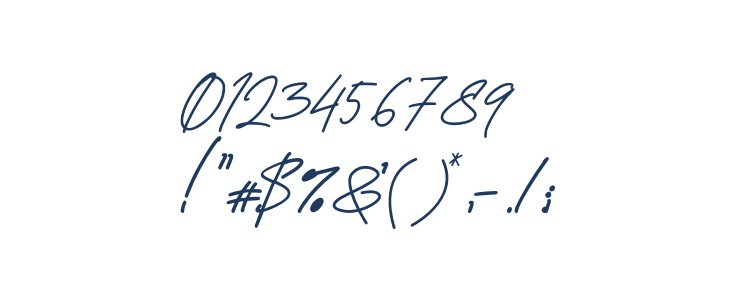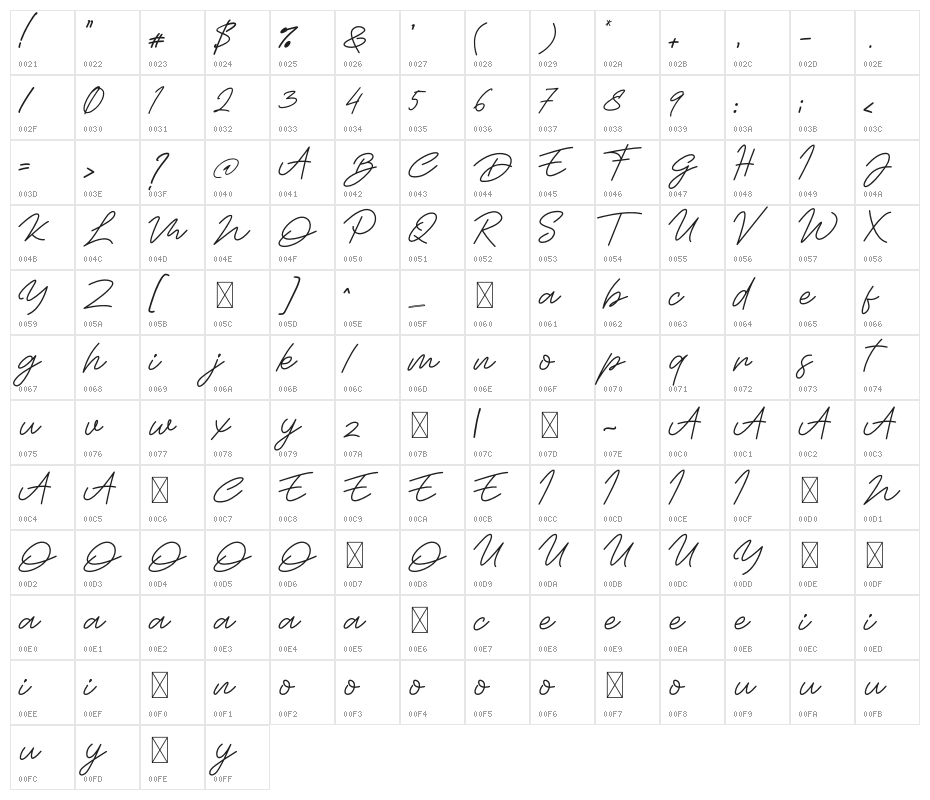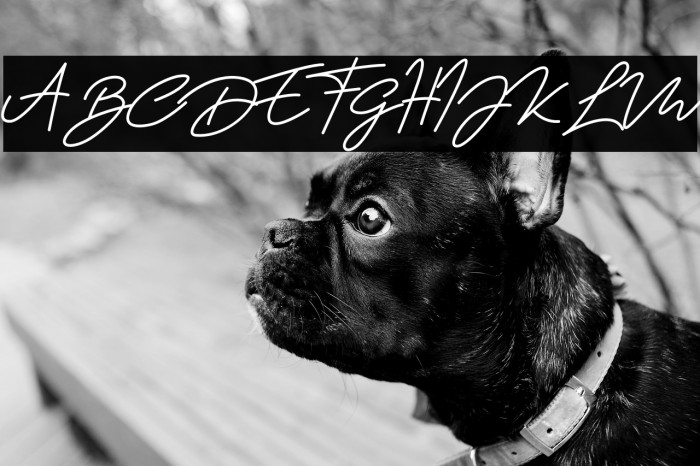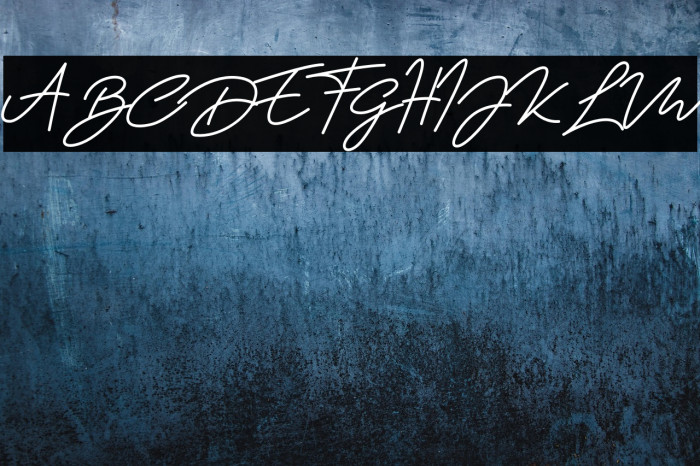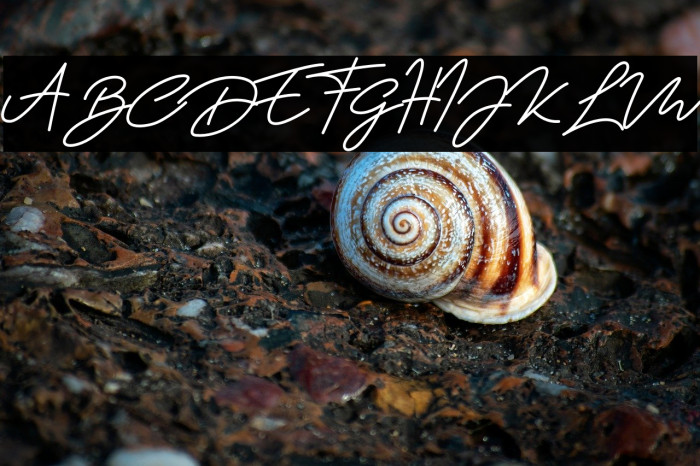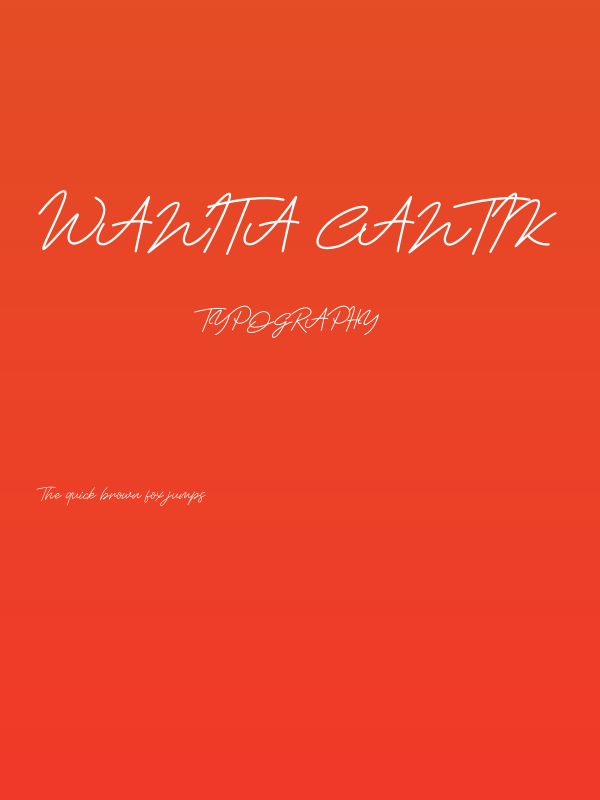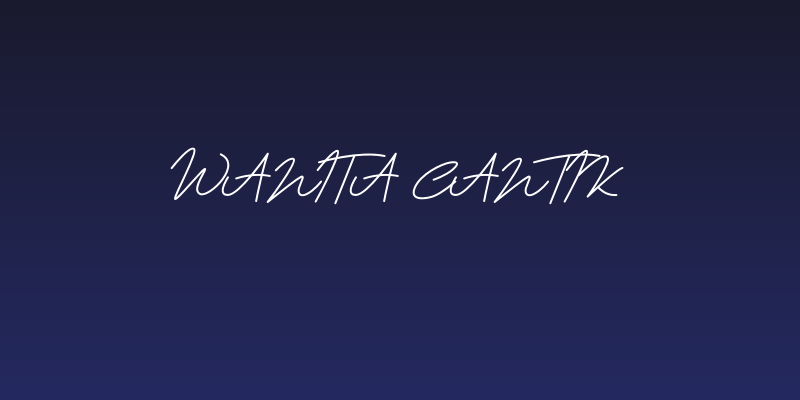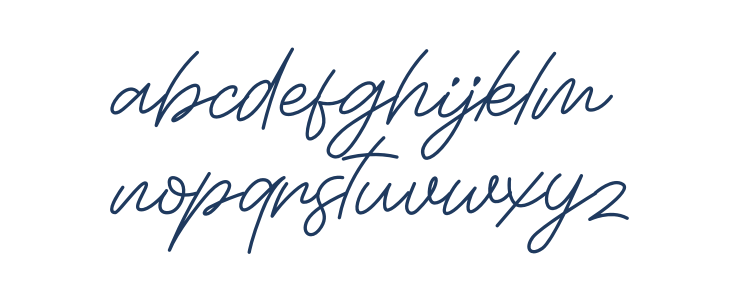
Wanita Cantik Font
Wanita Cantik Description
This font exudes a lively and expressive handwritten style, characterized by its fluid and connected letterforms. The strokes are smooth and flowing, giving it a natural and personal touch. The uppercase letters maintain a consistent height, while the lowercase letters exhibit a playful bounce, adding to its dynamic appearance. The numerals and special characters are crafted with the same attention to detail, ensuring a cohesive look across all glyphs. This font is perfect for projects that require a personal or artistic flair.
| Proposed Projects | Ideal for wedding invitations, personal branding, greeting cards, and artistic projects. |